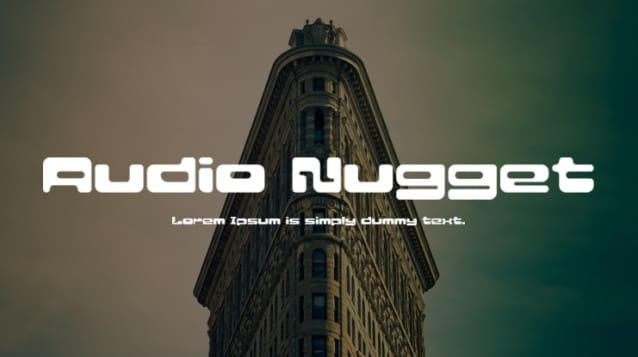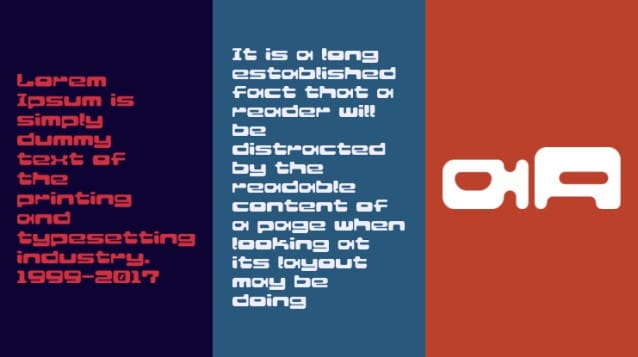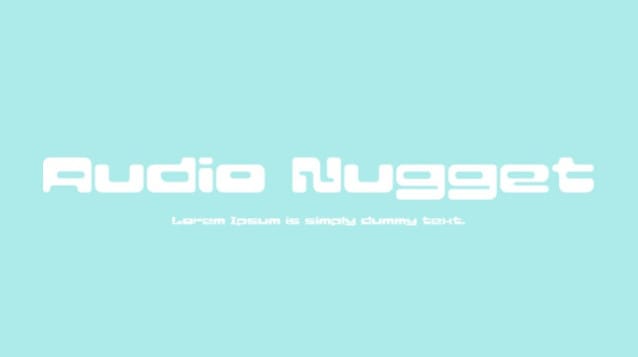
Audio Nugget Font
Audio Nugget Font, is a blobby font inspired by Y2K vector art. Its name is taken from how DankPods calls (usually low-quality) MP3 players “nuggets”.